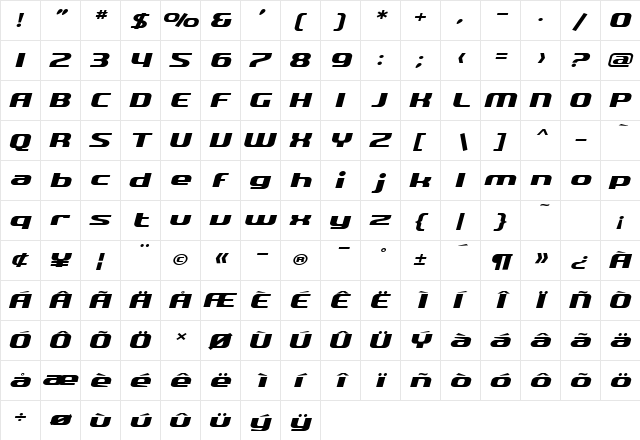
SF Quartzite Extended Oblique
Design Context for SF Quartzite Extended Typeface
SF Quartzite Extended is a composed and adaptable typeface that performs quietly and consistently across a wide range of design contexts. The dynamic lean of this cut emphasises speed and emphasis in any layout.
Pro Tip: Try SF Quartzite Extended for annotation and caption copy alongside an upright companion — the contrast in angle creates a dynamic but ordered typographic system.